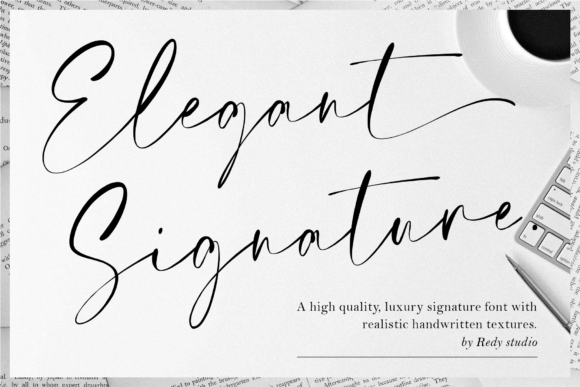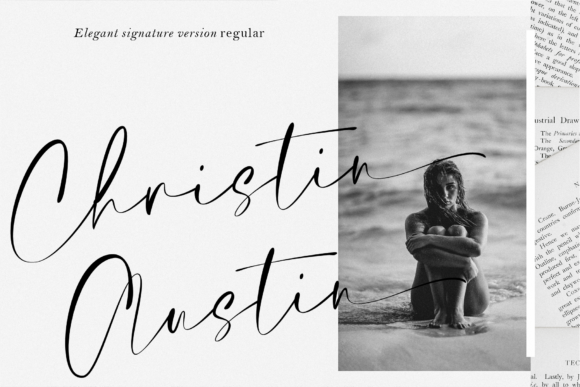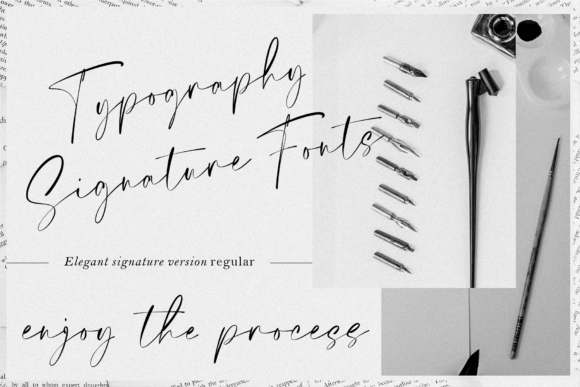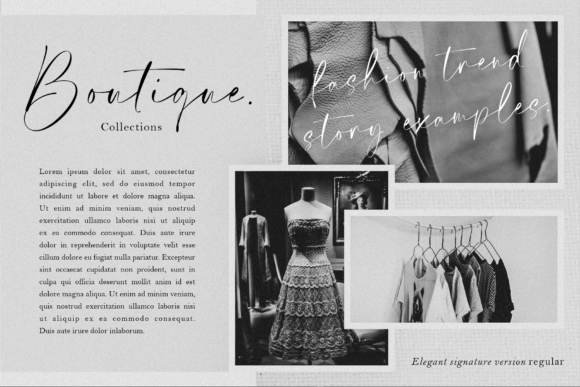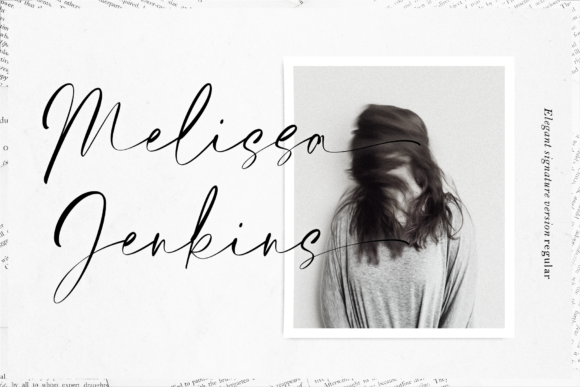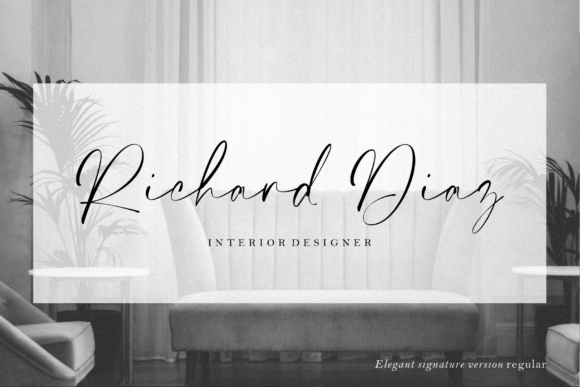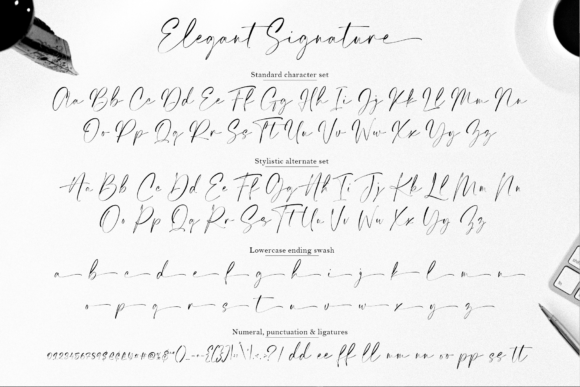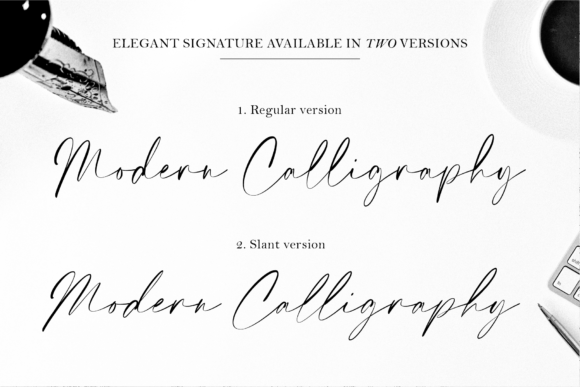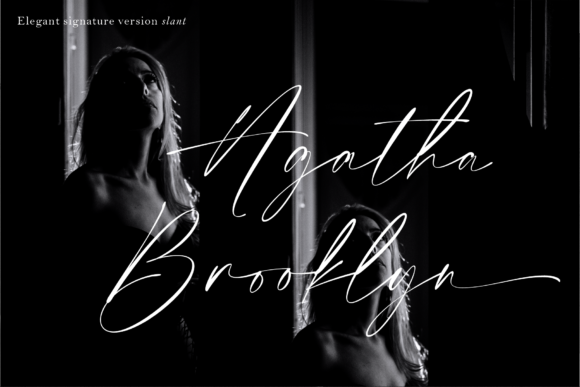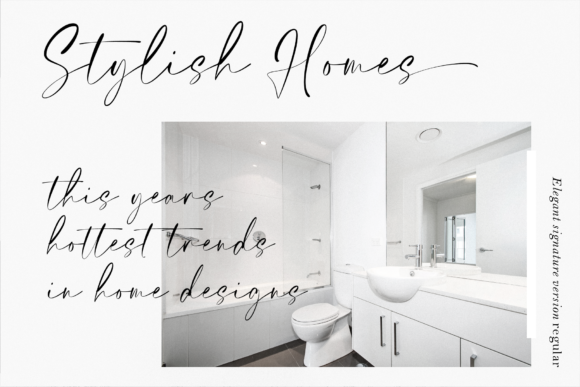
Elegant Signature Font
Elegant Signature is a refined and incredibly distinct script font. Relaxed and stylish, this font will instantly elevate each of your designs. This font is PUA encoded which means you can access all of the glyphs and swashes with ease!